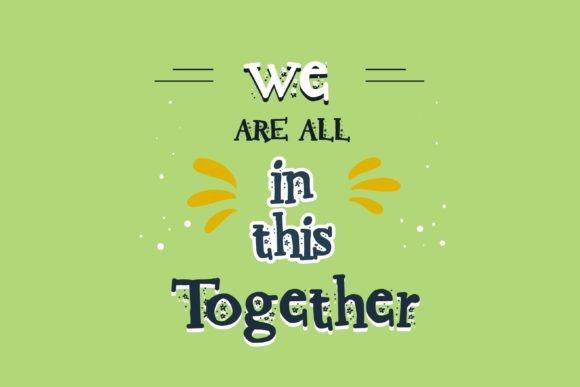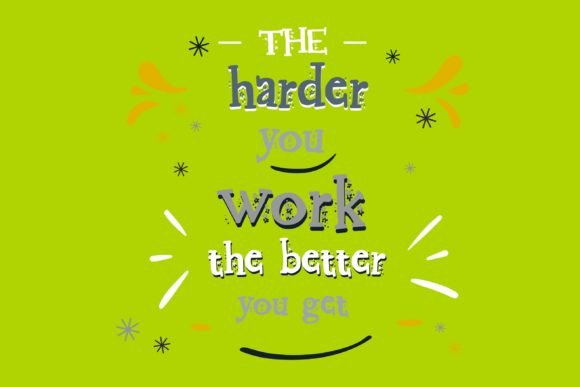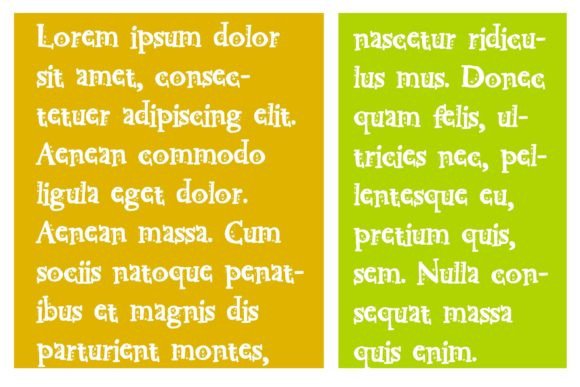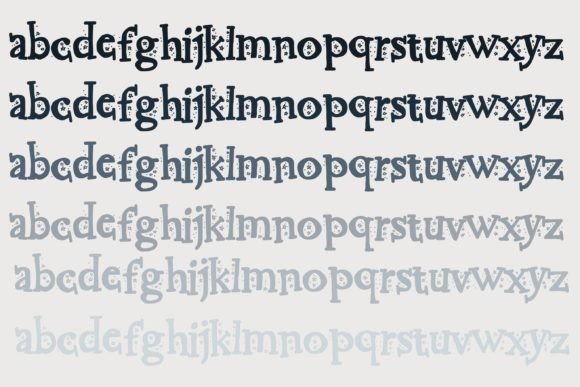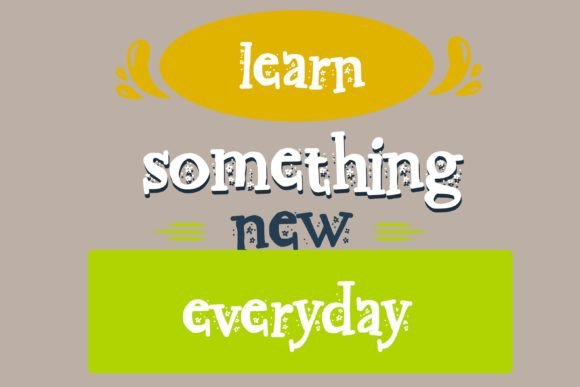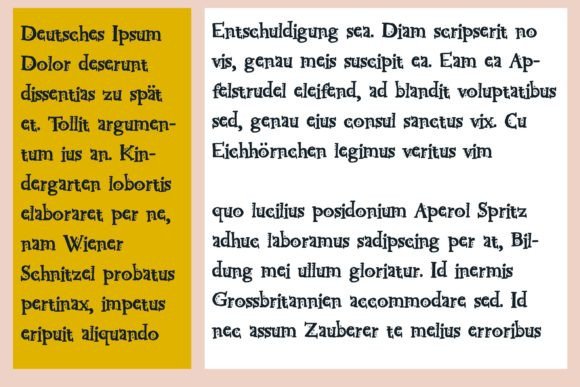
Introduction to Flowerbrain Font
This crafty courier-type font features bouncy lettering with flowers throughout.
A hand-crafted font is a font that is designed to feel unique and crafty It is often used for invitations, greeting cards, and other items.
Key Features of Flowerbrain Font
Why Choose Flowerbrain Font?
Flowerbrain Font offers exceptional quality and versatility, making it a valuable addition to your design toolkit. Whether you’re creating for personal projects or commercial use, Flowerbrain Font delivers professional results.